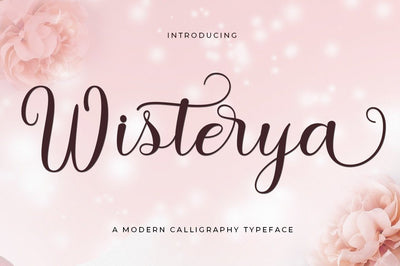
Wisterya
Wisterya Script is a new modern script font with an irregular base line. Trendy and feminine style. Wisterya Script looks beautiful in wedding invitations, thank you cards, quotes, greeting cards, logos, business cards, and more. Perfect for use in ink or watercolors. Includes initial and terminal letters, alternatives and support for many languages.